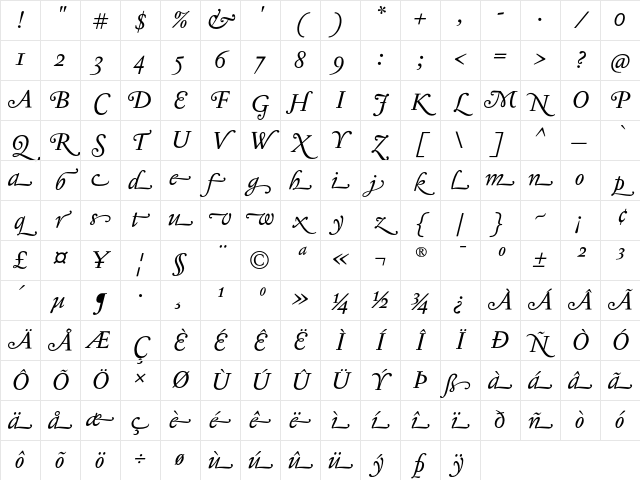
Complete Jannon T Moderne Swash Italic glyph index. Displaying only characters natively supported by Jannon T Moderne Swash Italic font.
Jannon T Moderne Swash flows with the natural rhythm of handwritten lettering, making it ideal for designs that call for warmth and personal expression.
Font Pairing: Combine Jannon T Moderne Swash with a simple geometric sans for maximum contrast - the tension between flowing curves and clean structure is a classic typographic pairing.
Pro Tip: Use Jannon T Moderne Swash for short runs of text - names, titles, or taglines. Extended body copy in script faces tires the eye quickly.